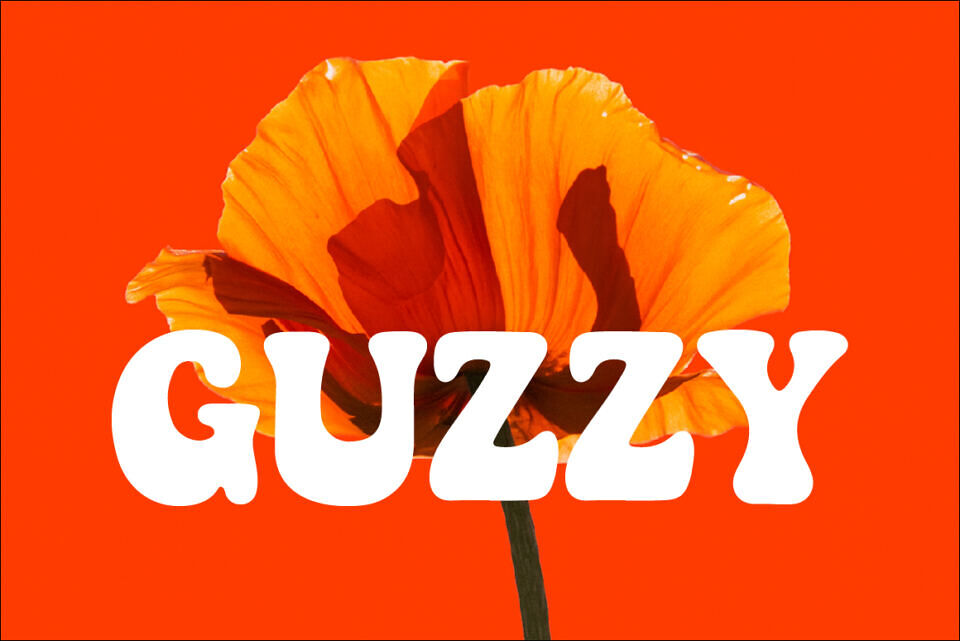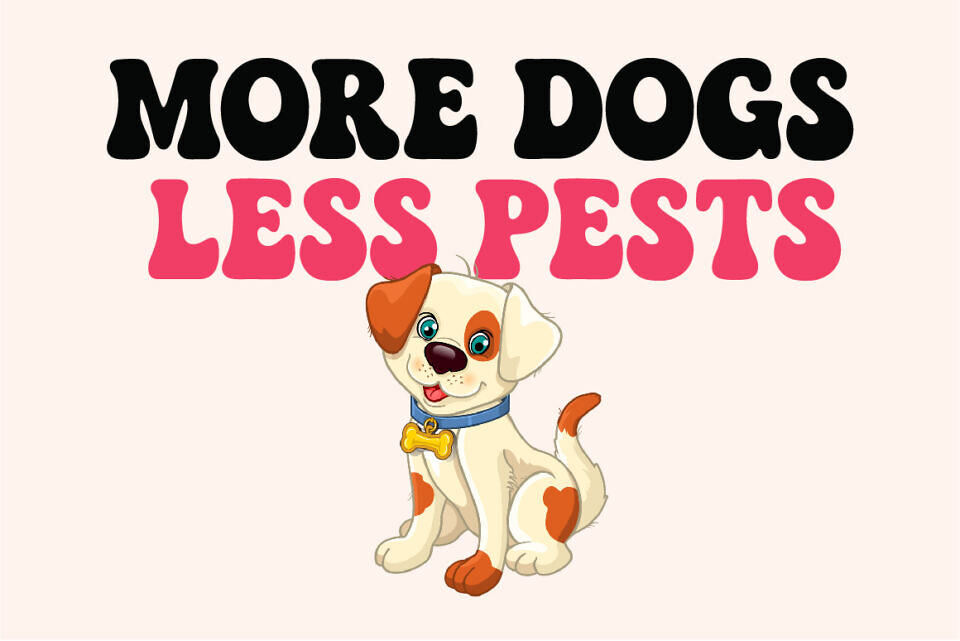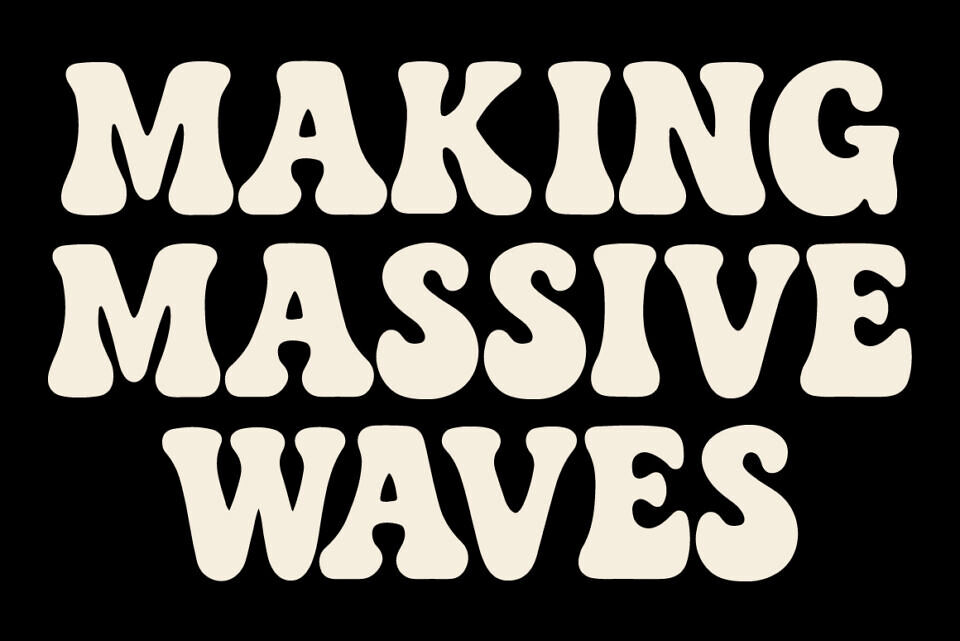
Guzzy is a bold, retro display typeface with playful, wavy curves and a groovy 70s vibe. Its bubbly letterforms create a fun, eye-catching aesthetic perfect for posters, album covers, and creative branding.
Featuring smooth, thick strokes and a slightly distorted flow, this font radiates vintage energy with a modern twist. Ideal for bold headlines and artistic designs, Guzzy brings a lively, psychedelic touch to any project—balancing nostalgia and contemporary flair in every letter.